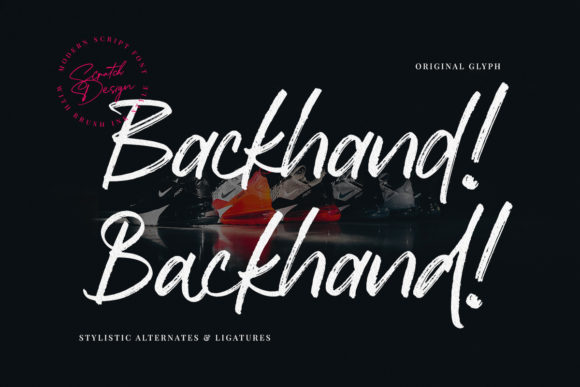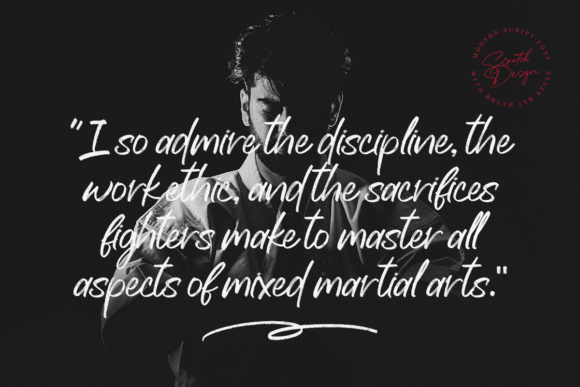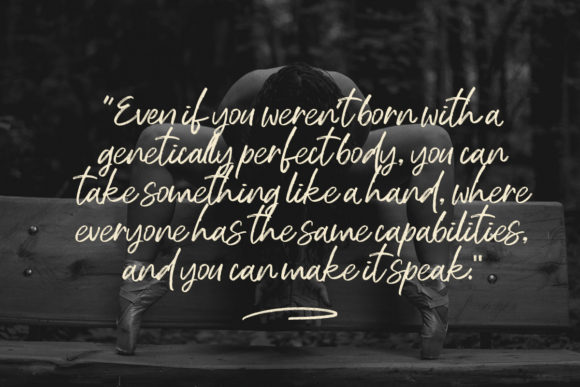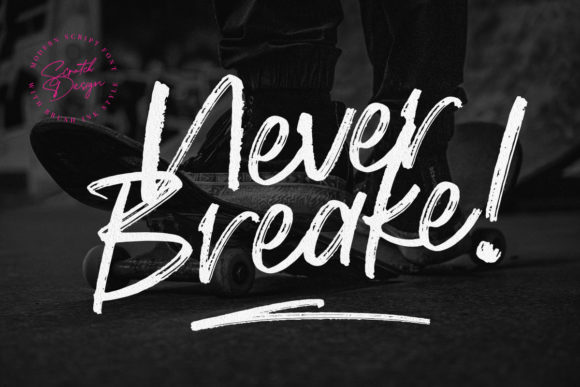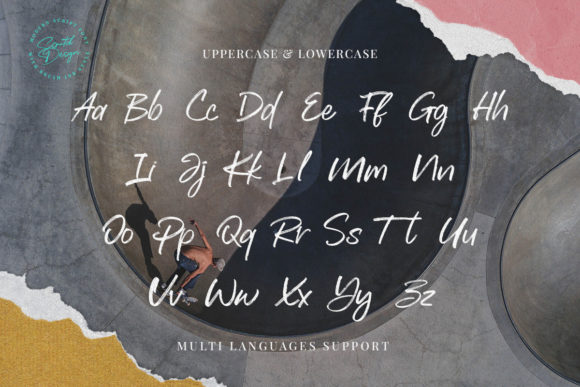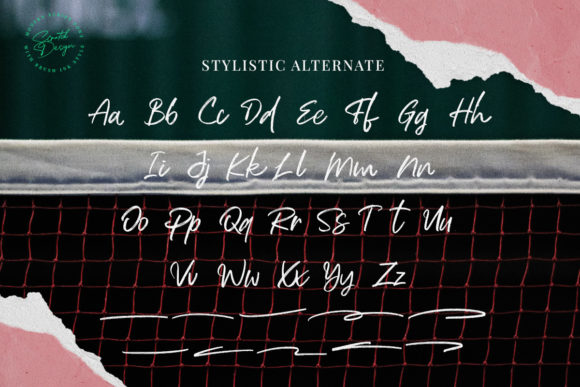
Introducing Backhand Font: The Ultimate Brushed Handwritten Font for Designers and Crafters
Are you a designer or crafter looking for a unique and stylish font to add a personal touch to your designs? Look no further than Backhand Font, a beautiful brushed and handwritten font that’s perfect for a variety of creative projects. In this article, we’ll take a closer look at Backhand Font, its features, and how you can use it to elevate your designs.
What is Backhand Font?
Backhand Font is a stunning brushed and handwritten font that’s designed to add a touch of elegance and sophistication to your designs. With its unique, hand-painted look, Backhand Font is perfect for designers and crafters who want to create beautiful, one-of-a-kind designs that stand out from the crowd.
Features of Backhand Font
So, what makes Backhand Font so special? Here are just a few of its key features:
- Brushed and Handwritten Look: Backhand Font has a beautiful, brushed and handwritten look that’s perfect for adding a personal touch to your designs.
- Versatile: Backhand Font is versatile and can be used for a wide range of design projects, from wedding invitations and greeting cards to logos and business cards.
- Elegant and Sophisticated: Backhand Font has an elegant and sophisticated look that’s perfect for designs that require a touch of luxury and refinement.
Uses of Backhand Font
So, how can you use Backhand Font in your designs? Here are just a few ideas to get you started:
- Wedding Invitations: Backhand Font is perfect for wedding invitations, adding a touch of romance and elegance to your designs.
- Greeting Cards: Use Backhand Font to create beautiful, handmade-style greeting cards for special occasions.
- Logos and Branding: Backhand Font can be used to create unique and stylish logos and branding materials that stand out from the crowd.
- Business Cards: Add a personal touch to your business cards with Backhand Font, making them more memorable and effective.
- Quotes and Posters: Use Backhand Font to create inspiring quotes and posters that showcase your message in a stylish and elegant way.
Why Choose Backhand Font?
So, why should you choose Backhand Font for your designs? Here are just a few reasons:
- Unique and Stylish: Backhand Font is a unique and stylish font that’s sure to make your designs stand out from the crowd.
- High-Quality: Backhand Font is a high-quality font that’s designed to produce crisp, clear results, even at small sizes.
Tips for Using Backhand Font
Here are a few tips for using Backhand Font in your designs:
- Use it Sparingly: Backhand Font is a bold and expressive font, so use it sparingly to add emphasis and interest to your designs.
- Experiment with Colors: Backhand Font looks great in a variety of colors, so don’t be afraid to experiment and find the perfect color for your design.
- Pair it with Other Fonts: Backhand Font can be paired with other fonts to create a unique and stylish look, so don’t be afraid to experiment and find the perfect combination.
| Font Name | Backhand Font |
| Author | Scratch Design |
In conclusion, Backhand Font is a beautiful and versatile brushed and handwritten font that’s perfect for designers and crafters who want to add a personal touch to their designs. With its unique and stylish look, Backhand Font is sure to make your designs stand out from the crowd. Whether you’re creating wedding invitations, greeting cards, logos, or business cards, Backhand Font is the perfect choice. So why wait? Download Backhand Font today and start creating stunning designs that showcase your creativity and style!